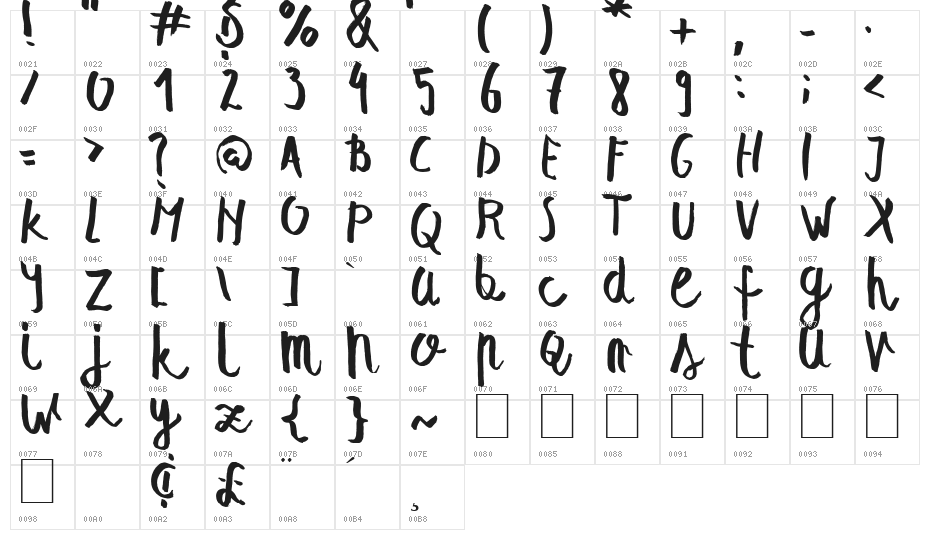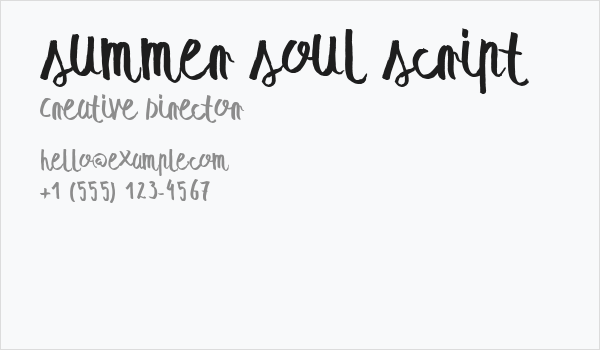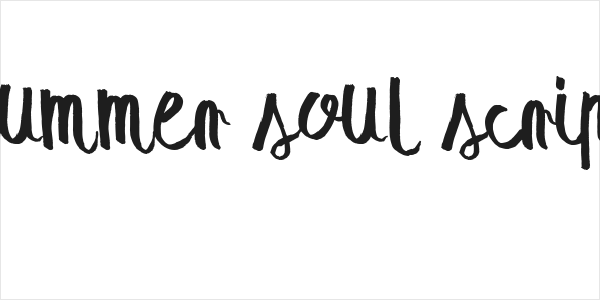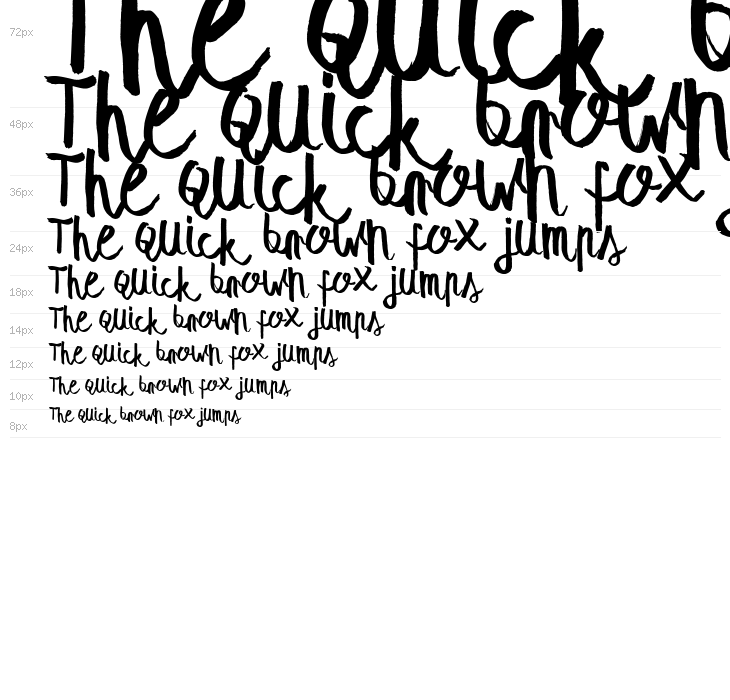
summer soul script Font
summer soul script Description
This font exudes a lively and carefree spirit, characterized by its bold, hand-drawn script style. The letters are slightly irregular, giving it a personal and informal touch, reminiscent of casual handwriting. The uppercase letters are tall and slightly narrow, while the lowercase letters maintain a consistent flow with playful loops and curves. The numbers and special characters follow the same energetic style, making the font versatile for various creative projects. The strokes are thick and have a consistent weight, contributing to its bold appearance. Overall, this font is perfect for designs that require a fun and approachable aesthetic.
| Proposed Projects | Ideal for greeting cards, invitations, posters, and branding projects that require a personal and playful touch. |